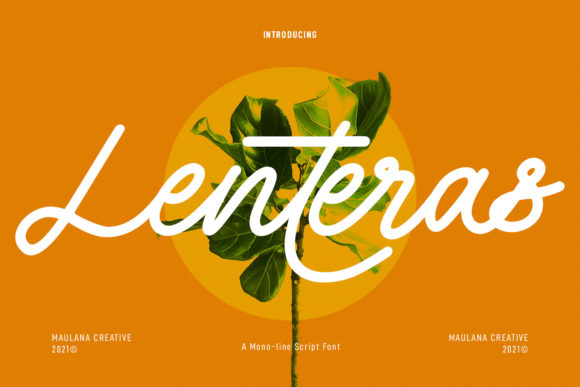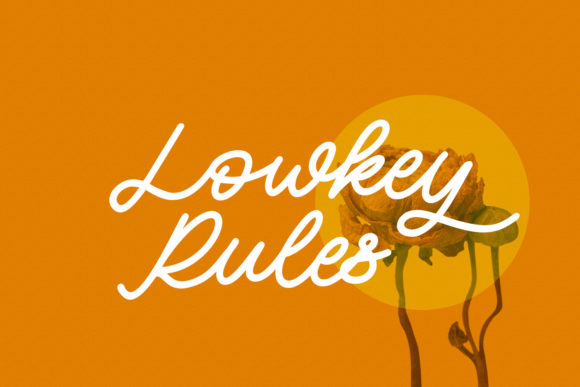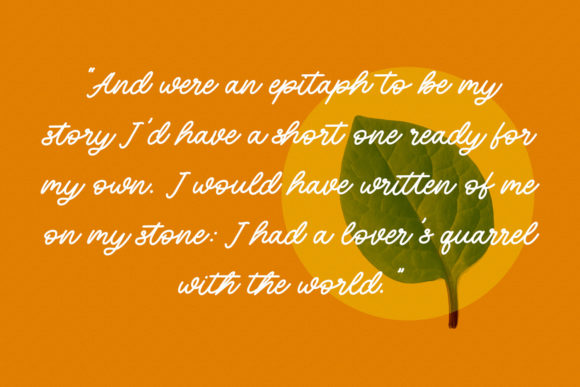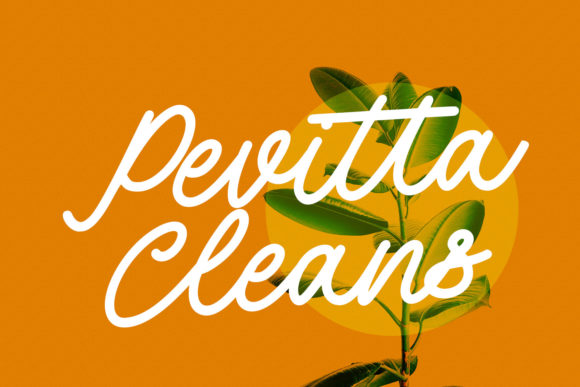
Lenteras Monoline Script Font
About Lenteras Monoline Script Font
Lenteras Monoline Script is a beautiful, well balanced and vintage styled script font. It is defined by smooth curves and is perfect for fashion branding or editorial designs. Add it confidently to your projects, and you will love the results.